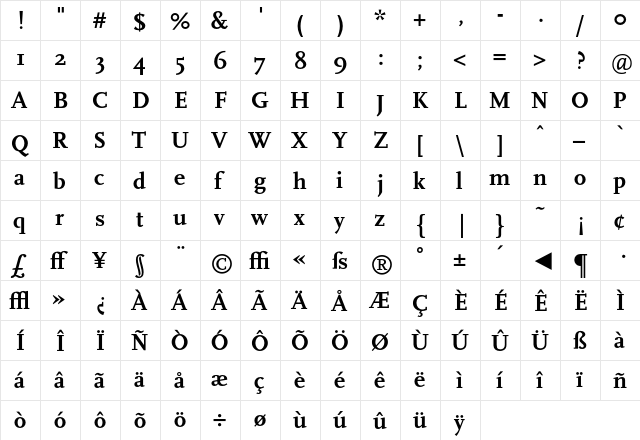
Cscala Bold
Design Context for Cscala Typeface
Cscala takes a measured approach to typography — its balanced proportions and neutral character make it a reliable workhorse for both digital and print work. The heavy weight commands attention and anchors typographic hierarchies.